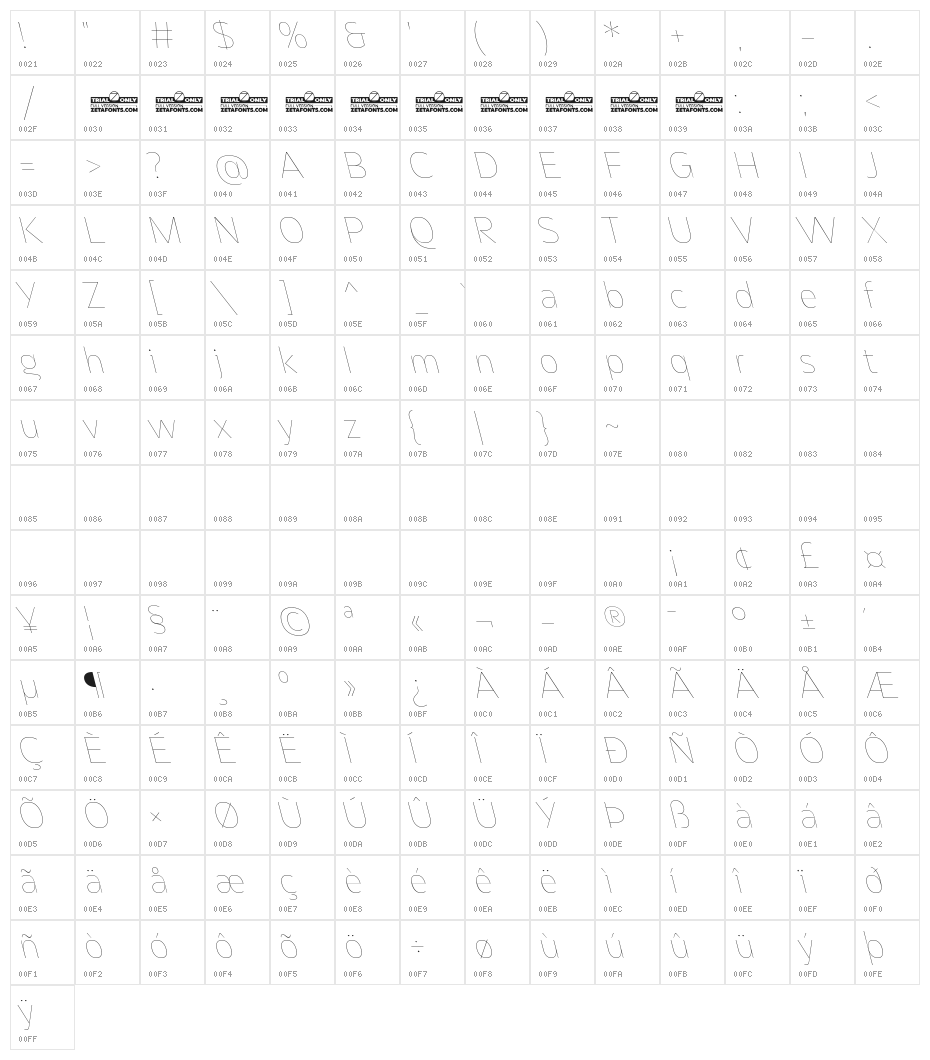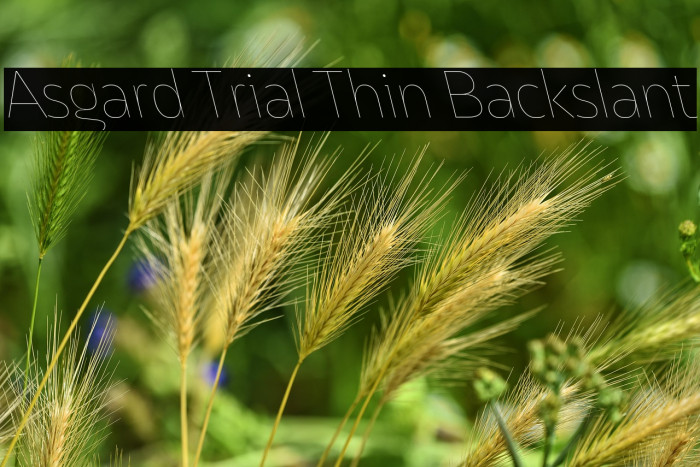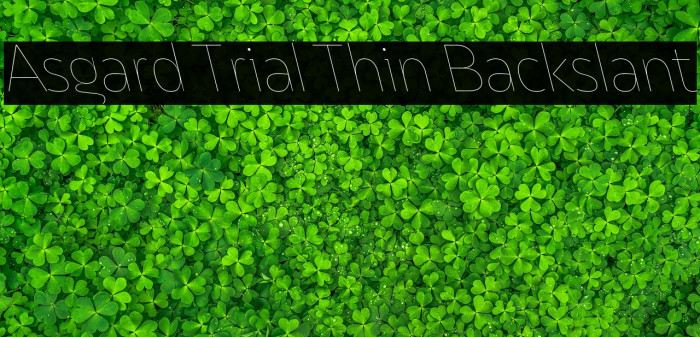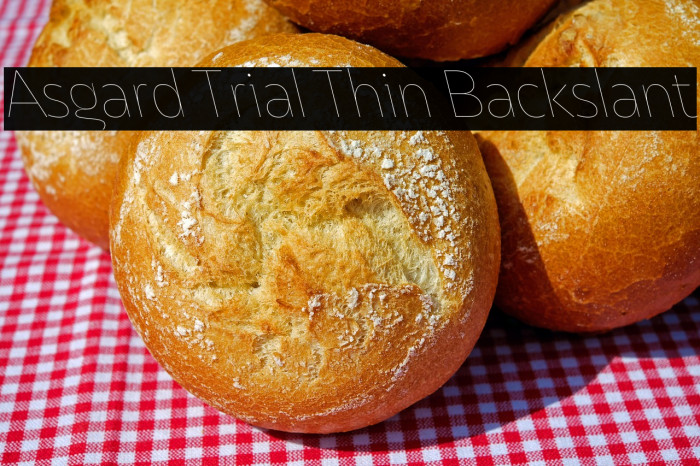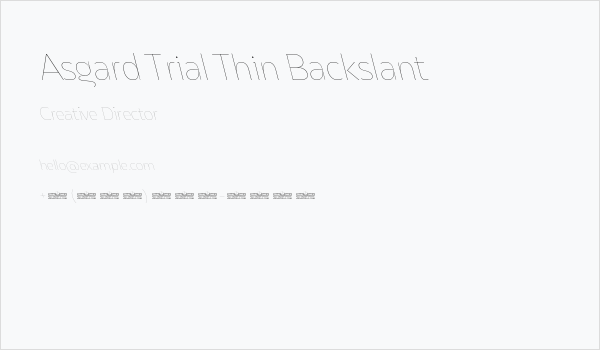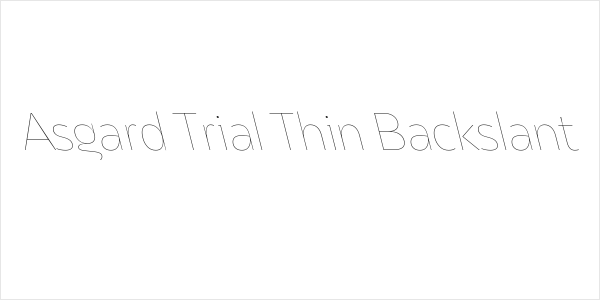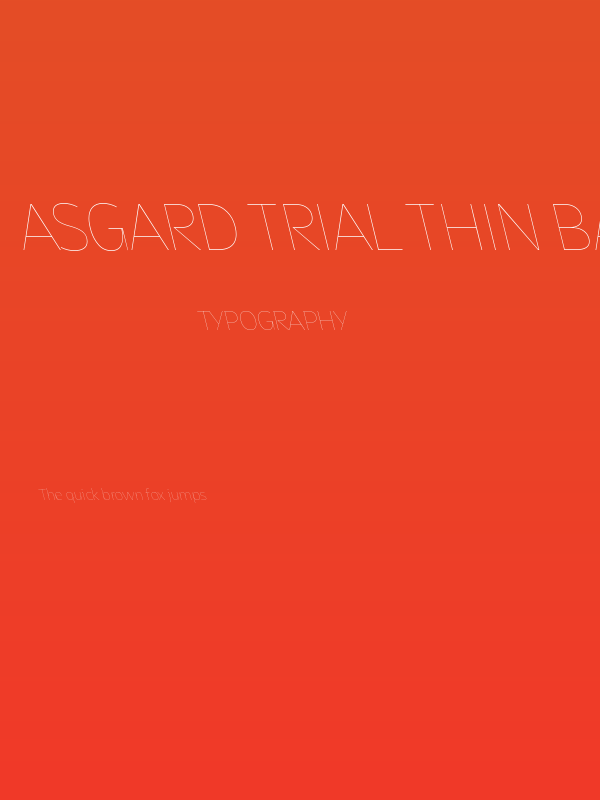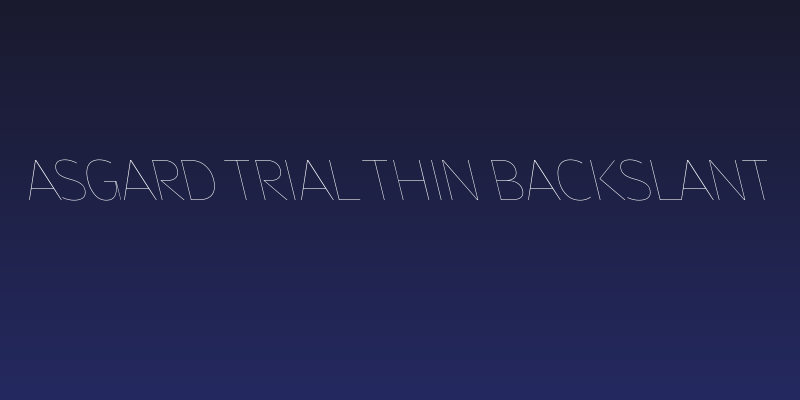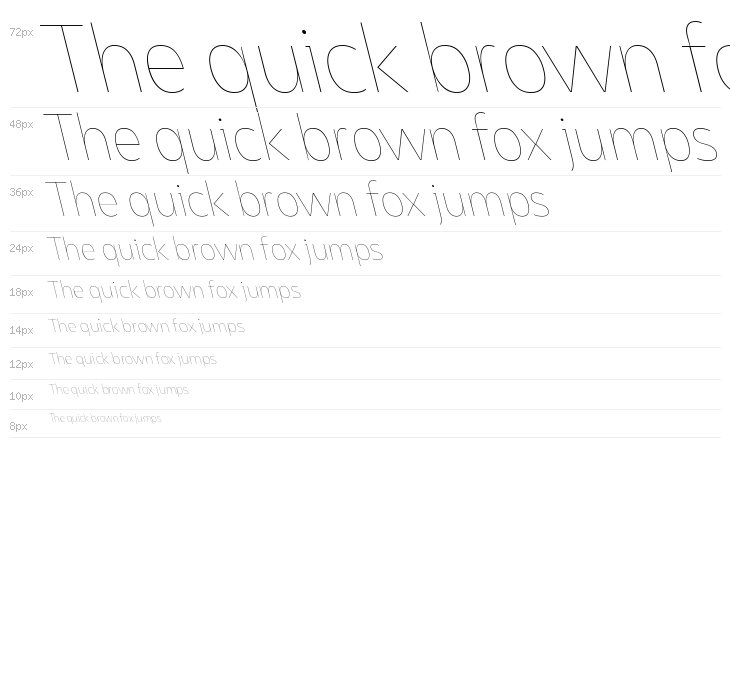
Asgard Trial Thin Backslant Font
Asgard Trial Thin Backslant Description
This font features a thin, elegant design with a distinct backslant, giving it a unique and modern appearance. The characters are elongated and sleek, with a consistent stroke width that maintains a clean and minimalistic look. The uppercase and lowercase letters are well-proportioned, and the numerals are designed to match the overall aesthetic. Special characters are included, maintaining the same thin and stylish form. This font's simplicity and sophistication make it suitable for a variety of design applications.